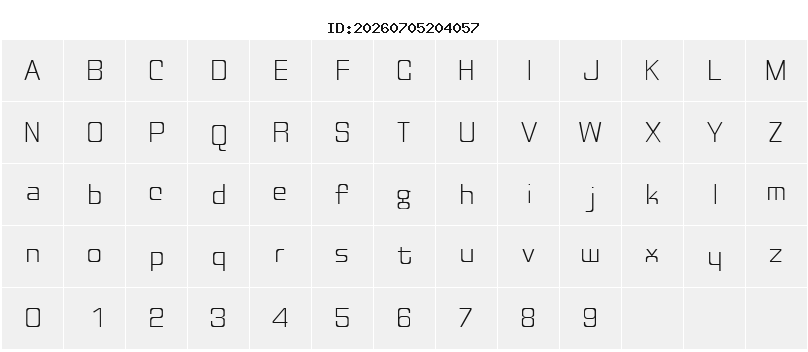
Discognate Light Preview
• Font Name: Discognate Light
• Full Font Name: Discognate Light
About Discognate Light.ttf
Discognate Light.ttf is a modern, elegant sans-serif font designed for ultimate readability and visual harmony. Perfect for branding, headlines, web design, and print materials.